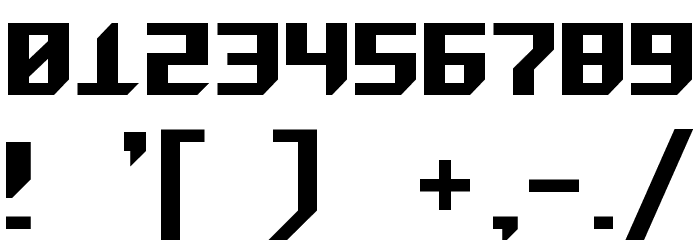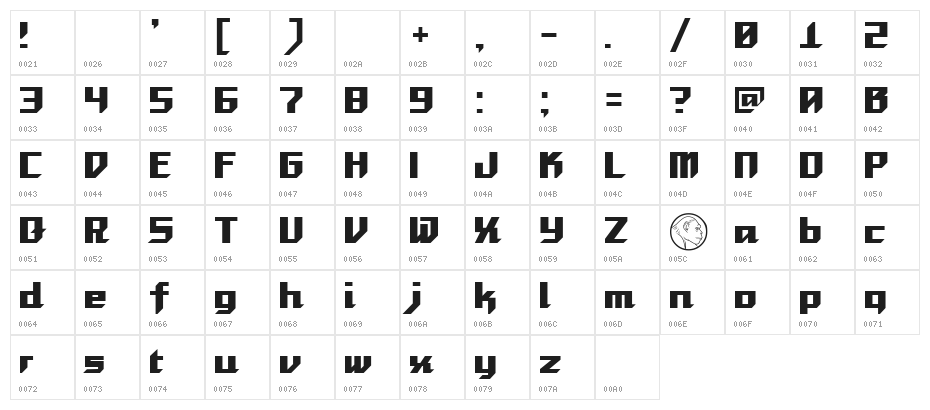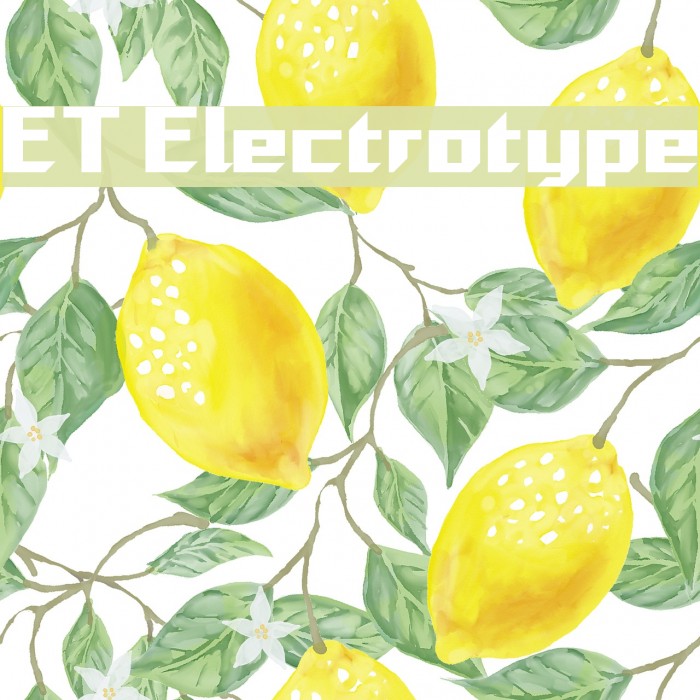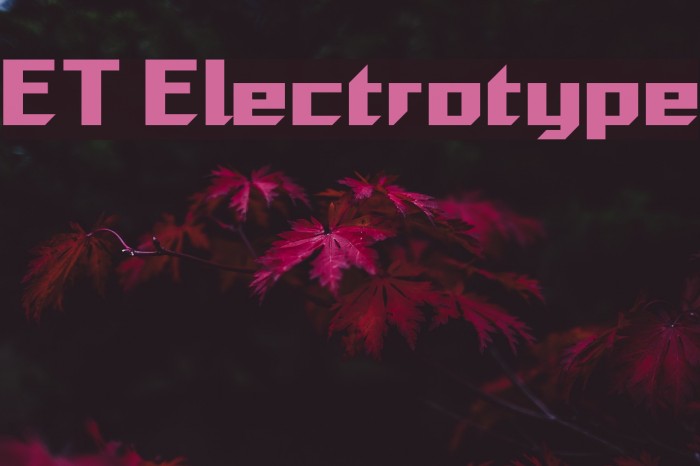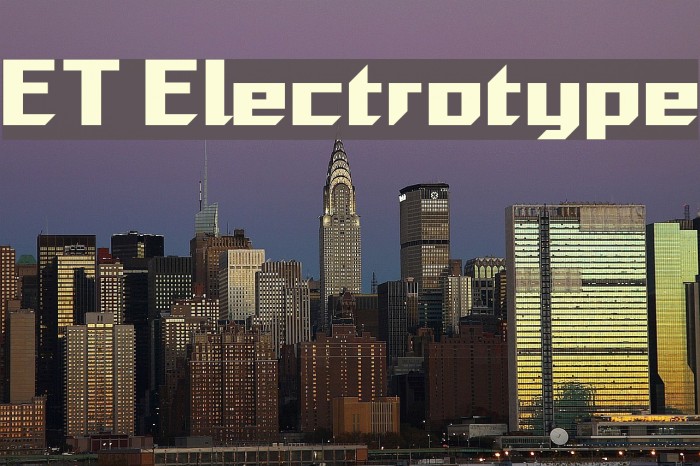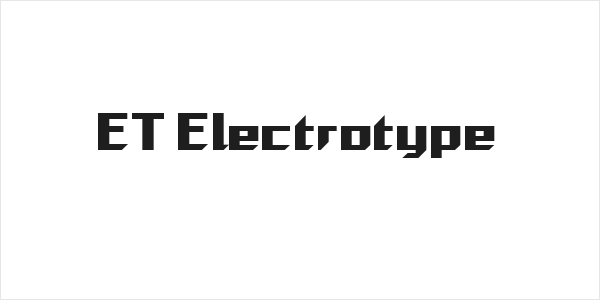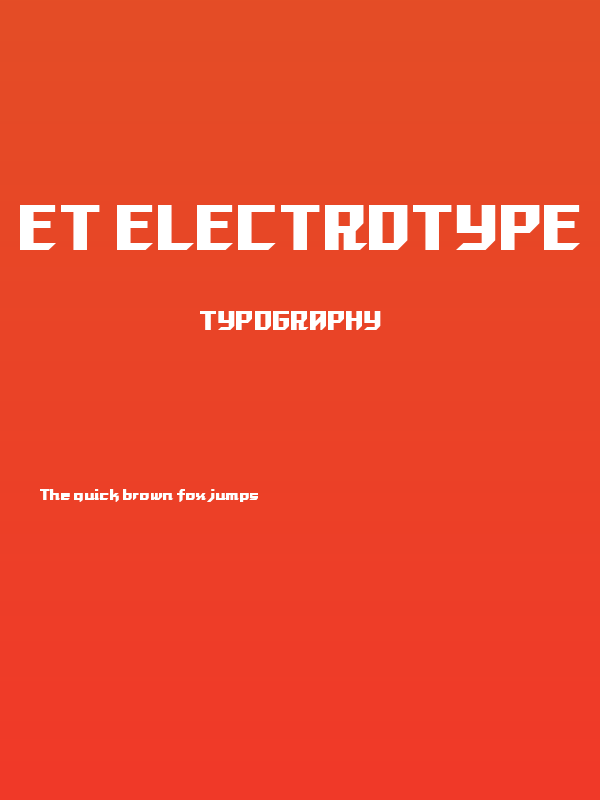
ET Electrotype Font
ET Electrotype Description
This font features a bold, geometric design with sharp angles and a futuristic aesthetic. The uppercase letters are blocky and robust, while the lowercase letters maintain a similar structure with slightly softer edges. Numbers and special characters follow the same angular style, providing a cohesive look across all glyphs. The font's design is reminiscent of digital displays or retro gaming, making it ideal for projects that require a modern yet nostalgic feel. Its strong presence and unique style make it suitable for attention-grabbing headlines or logos.
| Proposed Projects | Ideal for video game titles, tech branding, futuristic posters, and digital interfaces. |